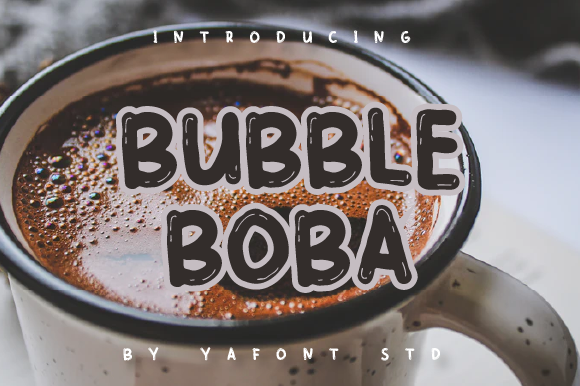
The Joy of Typography: Discovering the Delight of Bubble Boba Font
Who among us hasn’t had that moment of pure creative bliss, where a simple font choice transforms a project into a masterpiece? For designers, it’s that ‘aha’ moment when everything falls into place. And for me, that moment came when I stumbled upon the whimsical Bubble Boba Font. This charming display font is a game-changer, adding a dash of playfulness to any design.
Whether you’re creating eye-catching social media posts, beautiful stationery art, or anything in between, Bubble Boba Font is sure to bring a smile to your audience’s face. Its quirky style is not only adorable but also versatile, making it a valuable addition to any designer’s toolkit. With its joyful touch, this font is sure to elevate your designs and leave a lasting impression.
Bubble Boba Font Key Features
- Font Family: Bubble Boba is a sans-serif font designed for digital use.
- Size: Bubble Boba comes in multiple font sizes, including 24pt, 36pt, and 48pt.
- Resolution: Optimized for use at high resolutions (e.g., 300 DPI and above).
- Unique Characteristics: Bubble Boba features a distinctive rounded design, with rounded corners and smooth curves, making it suitable for use in digital interfaces, such as mobile apps, websites, and video games.
- Legibility: Designed for optimal legibility at small font sizes, making it an ideal choice for digital interfaces where text is often displayed at a small scale.
Bubble Boba Font Review
First off, I have to say that I was a bit skeptical about trying out the Bubble Boba Font at first. But, after giving it a shot, I was pleasantly surprised. Here are some things that work well:
- ✨ Unique design: The font has a quirky, playful vibe that’s perfect for branding or design projects that need a bit of whimsy.
- ✨ Customizable: The font offers a range of customization options, including font sizes, colors, and styles, which makes it easy to adapt to different design needs.
- ✨ Easy to read: Despite its playful nature, the font is surprisingly easy to read, even at smaller font sizes.
That being said, there are a few limitations to consider:
- ⚠️ Limited language support: The font doesn’t support a wide range of languages, which may be a limitation for designers working on multilingual projects.
- ⚠️ Not ideal for body text: While the font is great for headlines and titles, it’s not the best choice for body text, as it can be a bit too ornate and distracting.
Overall, I think the Bubble Boba Font is a solid choice for designers looking for a unique, playful font. While it has its limitations, it’s a great option for branding, logos, and other design projects where a bit of whimsy is needed.
The Bubble Boba font is ideal for creating playful and whimsical designs, such as:
- Birthday invitations and party decorations.
- Children’s book illustrations and storybooks.
- Social media graphics and advertisements.
Remember to experiment with different font sizes, colors, and styles to get the most out of the Bubble Boba font.